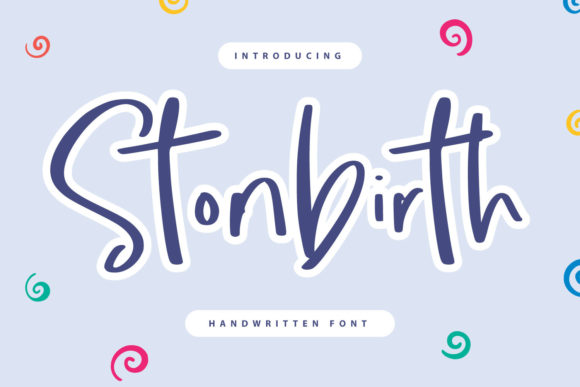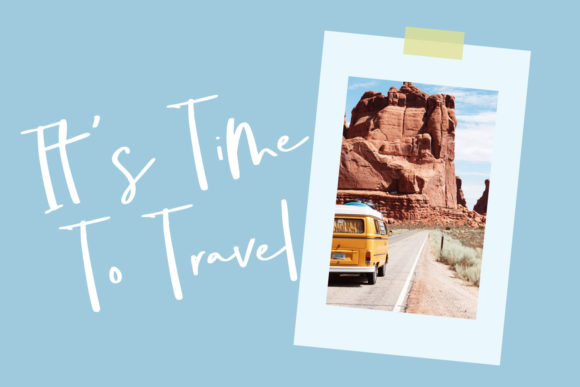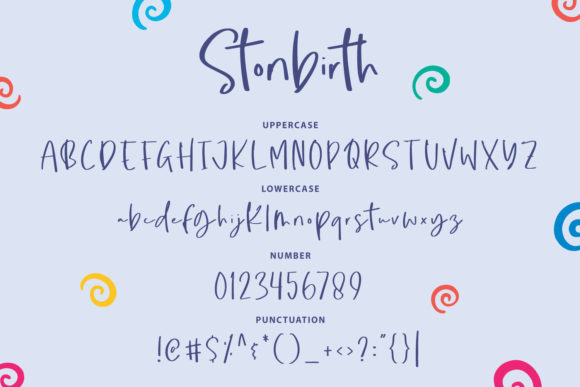
About Stonbirth Font
Stonbirth is a fun and quirky looking handwritten font. Fall in love with its authentic feel and use it to create gorgeous wedding invitations, beautiful stationary art, quotes, t-shirt designs, branding, children designs, logos, social media posts, and more!